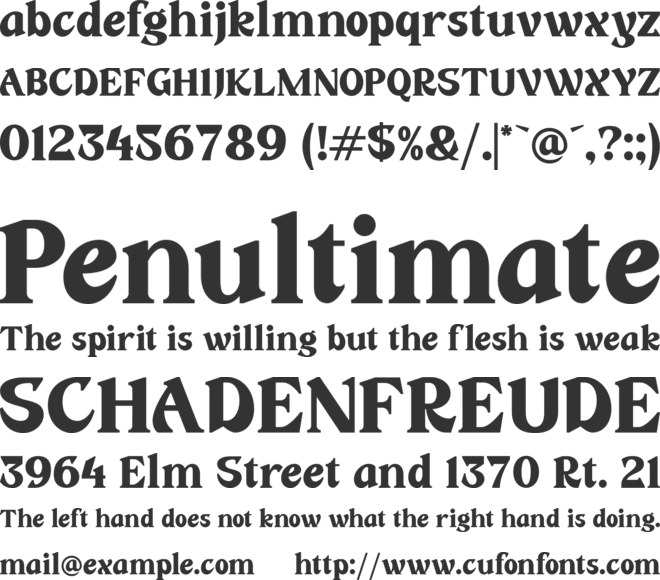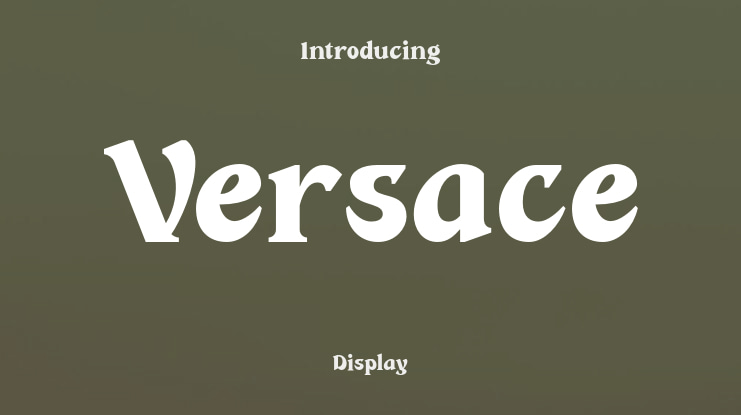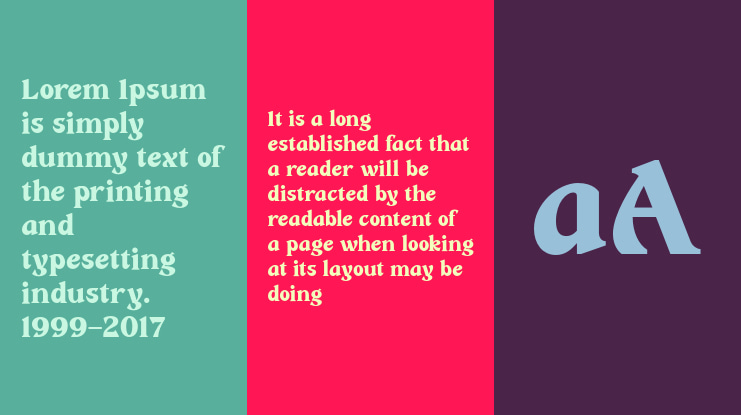
Versace Font Family
Wild Flowers is a unique and modern bold serif font that seamlessly blends traditional elements with contemporary style. Its bold and confident lines give it a strong presence, while the decorative serifs add a touch of elegance and sophistication.
This font is perfect for a wide range of design projects, including branding, editorial, packaging, and headlines. Its versatility allows it to work well in both print and digital mediums, making it an ideal choice for both body text and larger display uses.